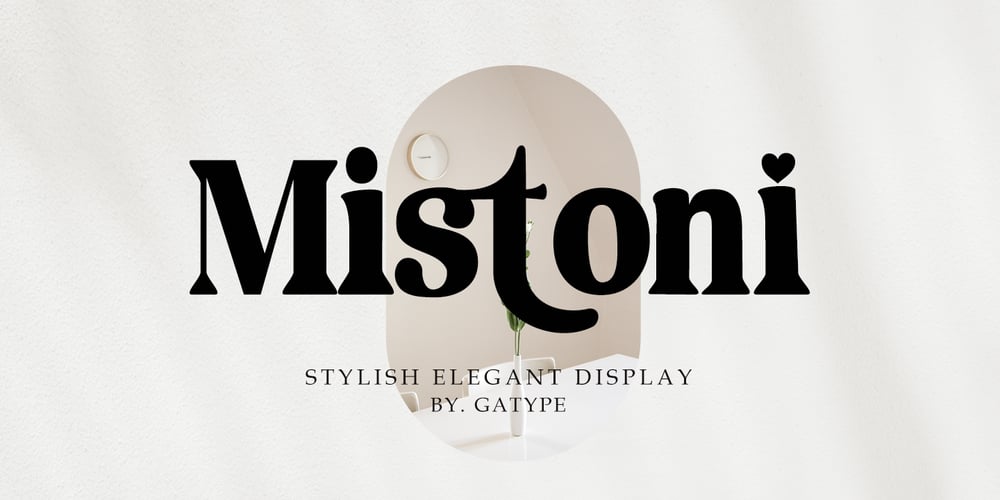
Mistoni Font Family was designed by khaidir and published by Gatype. Mistoni contains 1 styles and family package options. Mistoni An elegant font designed when in a creative mood and perfect shape, inspired by the bold, natural look of serifs so beautiful for today’s fashion. bold, balanced and varied, born for luxury and beauty. including uppercase letters, numbers, and various kinds of punctuationMistoni is perfect for invitations, logos & branding, photography, advertising, watermarks, social media posts, product packaging, product designs, labels, wedding designs, stationery.